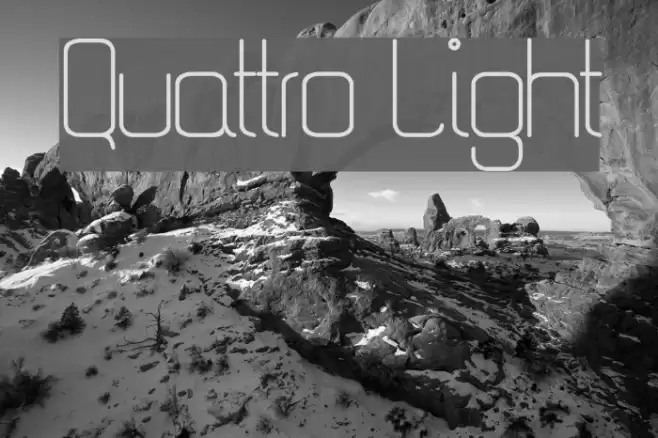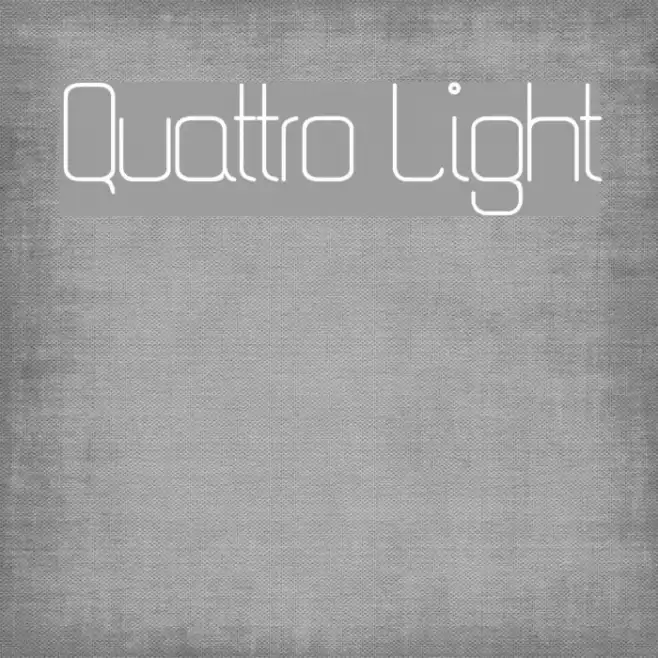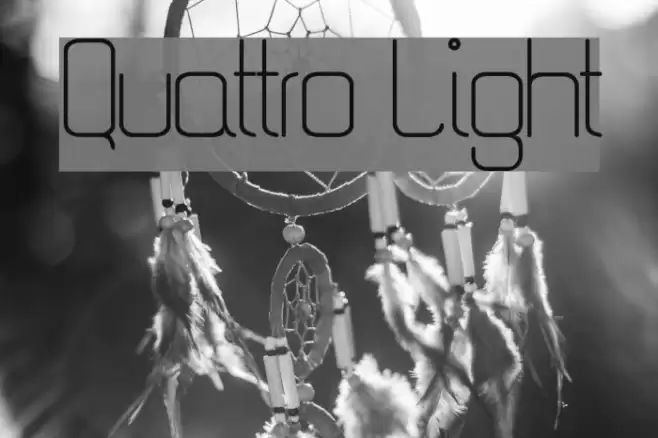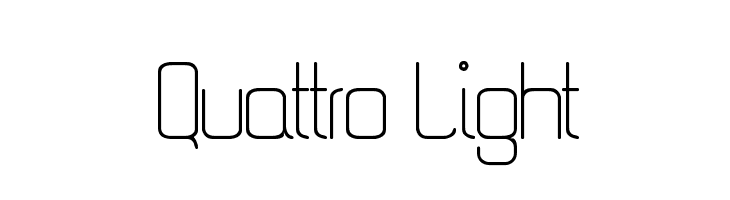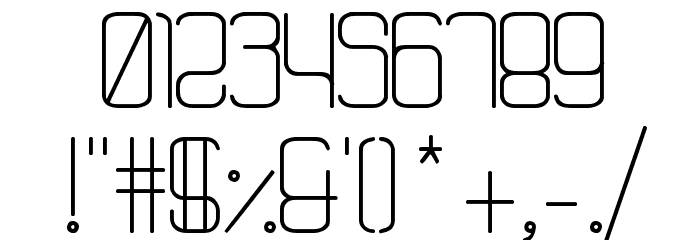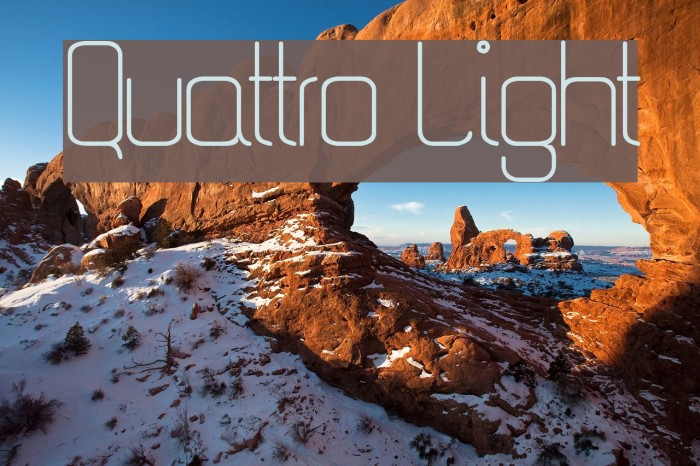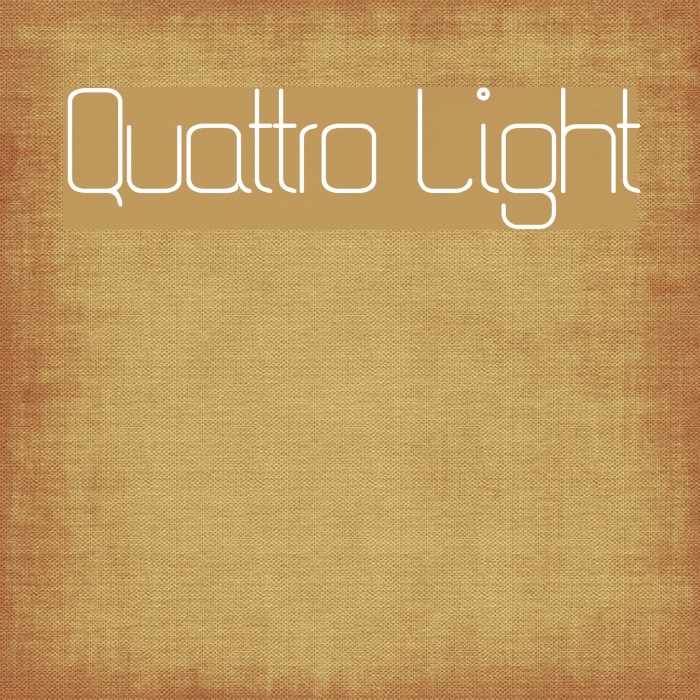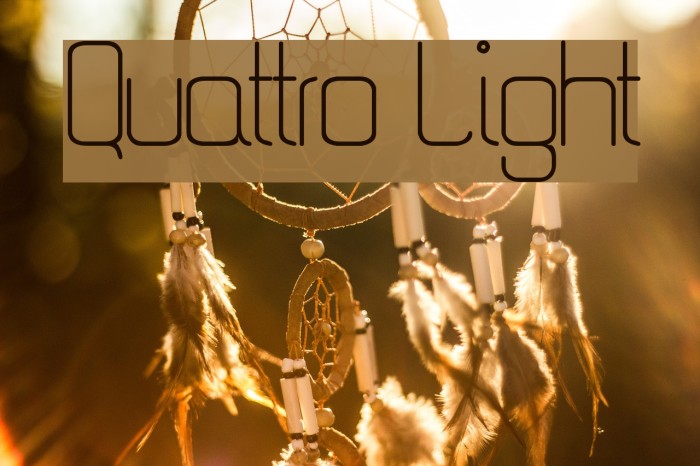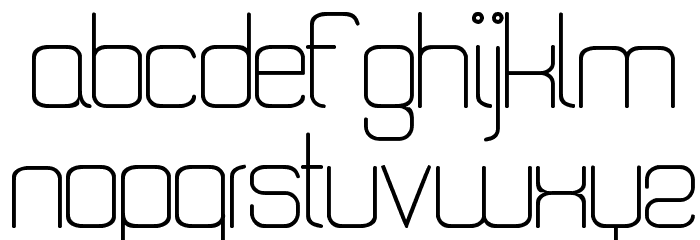
Quattro Light Font
Quattro Light Description
This font features a sleek, modern design with a geometric and minimalist aesthetic. The characters are constructed with thin, uniform lines that create a sense of elegance and sophistication. The uppercase and lowercase letters maintain a consistent height, contributing to a harmonious and balanced appearance. The numerals and special characters are designed with the same attention to detail, ensuring a cohesive look across all elements. The font's open and airy structure makes it highly legible, even at smaller sizes, while its unique style adds a contemporary touch to any design project.
A modern, geometric font with thin, uniform lines and a minimalist aesthetic from Uncategorized fonts.